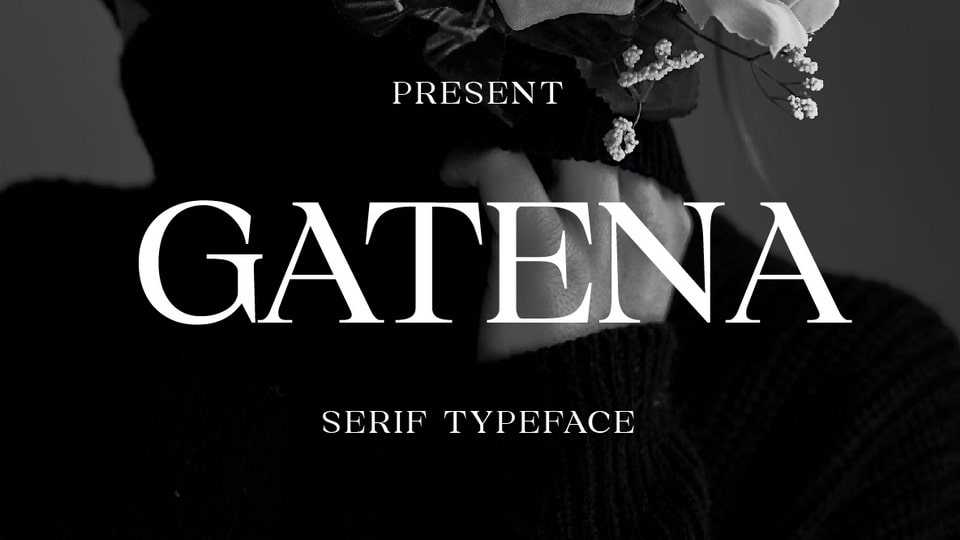
Download Gatena font, a harmonious blend of classic luxury and modern elegance. With its elegant and well-proportioned design, this font is suitable for design projects that require a touch of luxury and boldness.
Designer: Yukita Creative